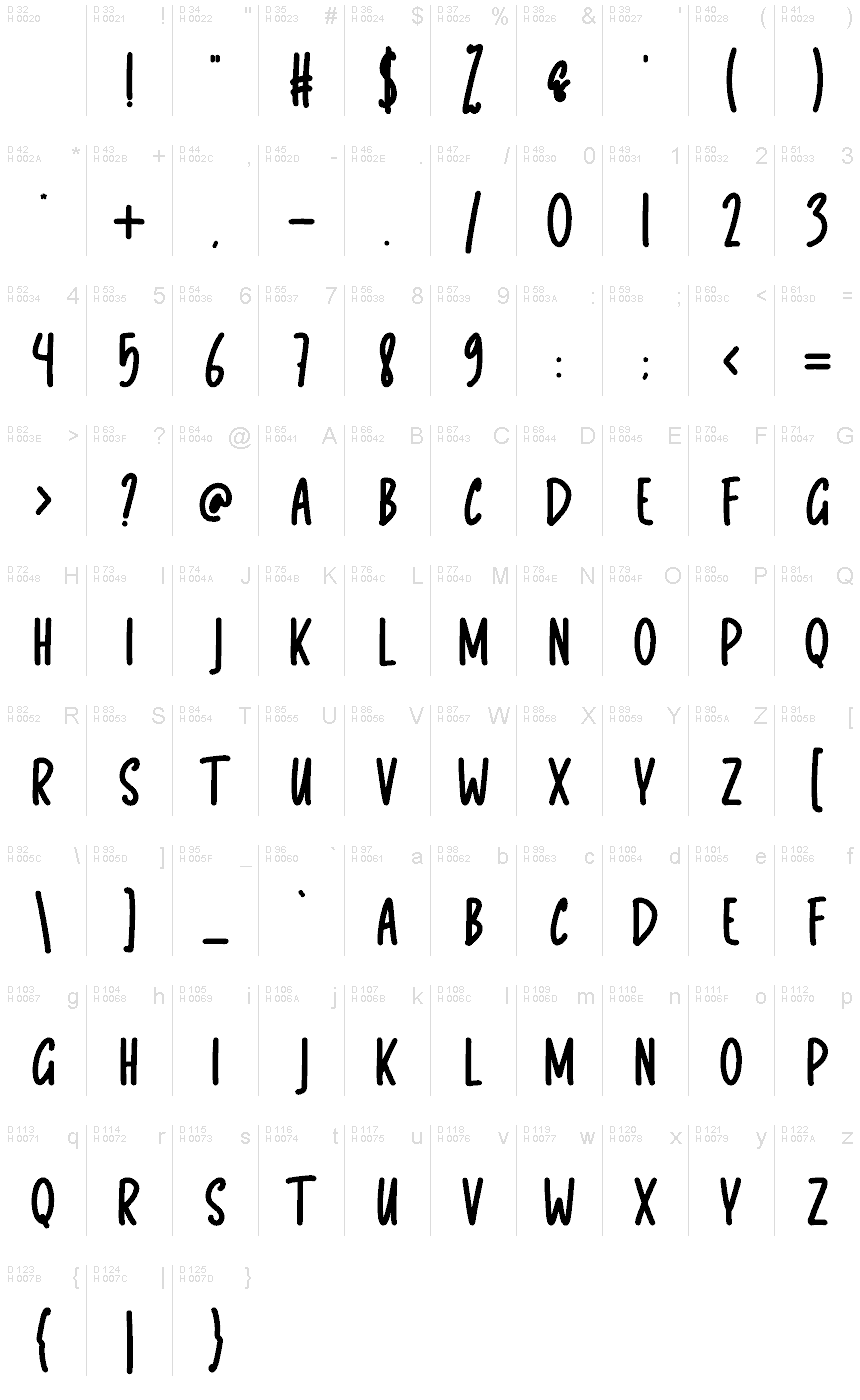
Vaselyn
Vaselyn font by Skiiller Studio is a lively handwritten font. With expressive lines, condensed width, and modern appearance, its bold style makes it approachable and engaging.
Use this font for impressive packaging labels as well as magazine covers and book covers. It is also great for branding fashion houses, invitation cards, logos, website headers, posters, product descriptions, or photo captions on Instagram.